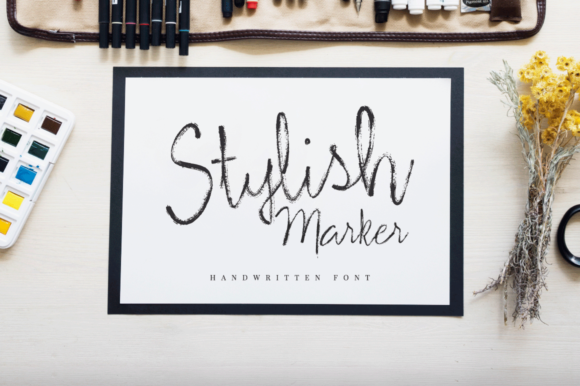
Unleash the beauty of handwritten elegance with Stylish Marker Font, a remarkable script font family inspired by the charm of a weathered marker. Crafted with intricate attention to detail by the talented Pedro Alexandre Teixeira, Stylish Marker captures the authenticity of hand-drawn letters, adding a touch of timeless elegance to your creative projects.
Immerse yourself in the nostalgic allure of Stylish Marker, a font reminiscent of cherished handwritten notes and vintage typography. Let your designs speak volumes with the font's expressive strokes and subtle imperfections, evoking a sense of warmth and individuality. From heartfelt messages to captivating branding, Stylish Marker adds a personal touch that resonates with audiences.
With its versatility and adaptability, Stylish Marker seamlessly blends with a wide range of design concepts. Whether you're creating eye-catching logos, stunning invitations, or captivating social media graphics, this font adds a layer of sophistication and charm. Let your designs stand out with Stylish Marker's ability to convey both elegance and authenticity.
Experience the creative possibilities that await with Stylish Marker. From heartfelt wedding invitations that capture the essence of everlasting love to bold and captivating posters that demand attention, this font breathes life into your designs. Let your creativity flourish as you explore the endless possibilities of Stylish Marker, a font that transforms ordinary words into captivating expressions.